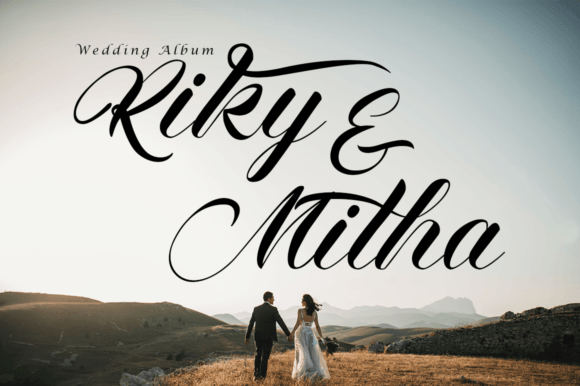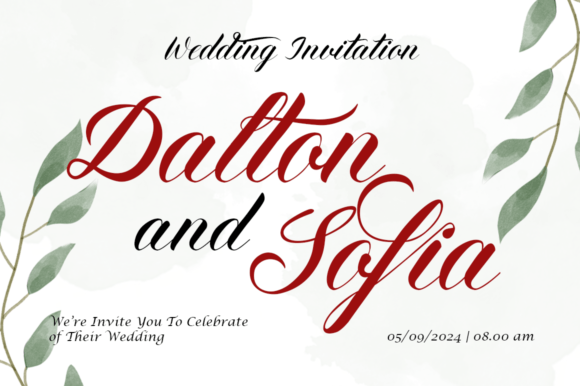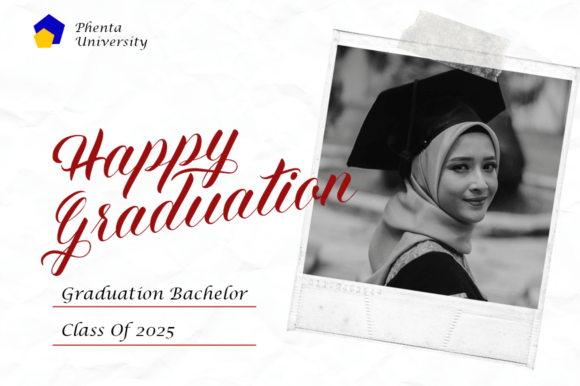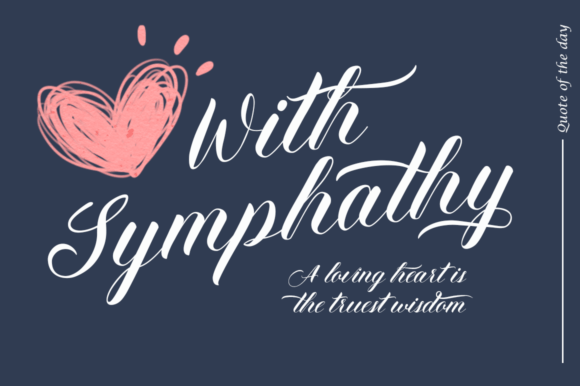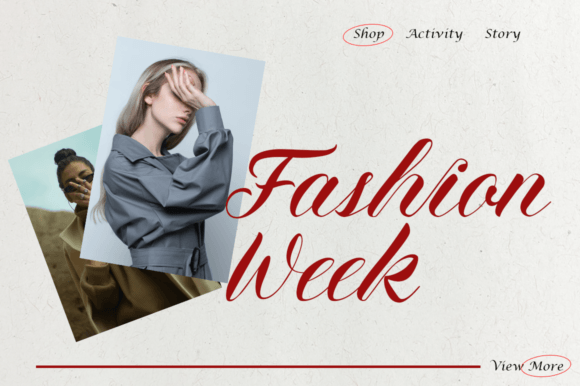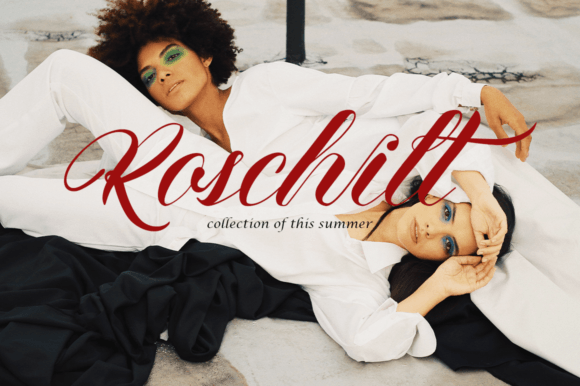
Introduction to Loving Night Font
Have you ever been working on a creative project, pouring your heart and soul into every detail, only to find the perfect font to tie everything together? That’s exactly what happened to me when I stumbled upon the Loving Night Font. Its elegant script and high-quality design made my project go from good to great.
As a designer, you know how crucial it is to have access to a wide range of design resources to bring your ideas to life. That’s where Loving Night Font comes in – a beautiful, classy script font that’s perfect for any formal project. With its transparent background and versatility, it’s a valuable addition to any designer’s toolkit.
Key Features of Loving Night Font
- High-quality, elegant design perfect for creative projects, including wedding invitations, greeting cards, and other romantic themes.
- Features a unique, handwritten style with subtle flair, adding a touch of personality to any design project.
- Designed to be highly legible, with clear and distinct letterforms that are easy to read in a variety of sizes and resolutions.
- Perfect for use in digital and print designs, including social media graphics, posters, and business cards.
Honest Review: Loving Night Font
I recently stumbled upon the Loving Night Font and I must say, it’s been a great addition to my design resource library. This font is perfect for creative projects that require a touch of elegance and sophistication.
- High quality: The Loving Night Font is well-crafted and looks fantastic on screen and print.
- Limited font weights: The Loving Night Font only comes in a few font weights, which might limit its versatility in certain design projects.
Overall, I’m quite impressed with the Loving Night Font. It’s a high-quality font that’s perfect for designers looking for a elegant and sophisticated font for their creative projects. With a few limitations, it’s still a great design resource to have in your library.
Loving Night Font
The Loving Night Font is a high-quality design resource that can elevate any creative project. This free download features a transparent background, making it versatile and easy to use in various design applications.
Use the Loving Night Font in combination with other design elements, such as graphics and images, to create a visually appealing design. Experiment with different font sizes and colors to add depth and interest to your design.
The Loving Night Font is suitable for a variety of creative projects, including invitations, posters, and social media graphics. Its high-quality design and transparent background make it a popular choice for designers and non-designers alike.